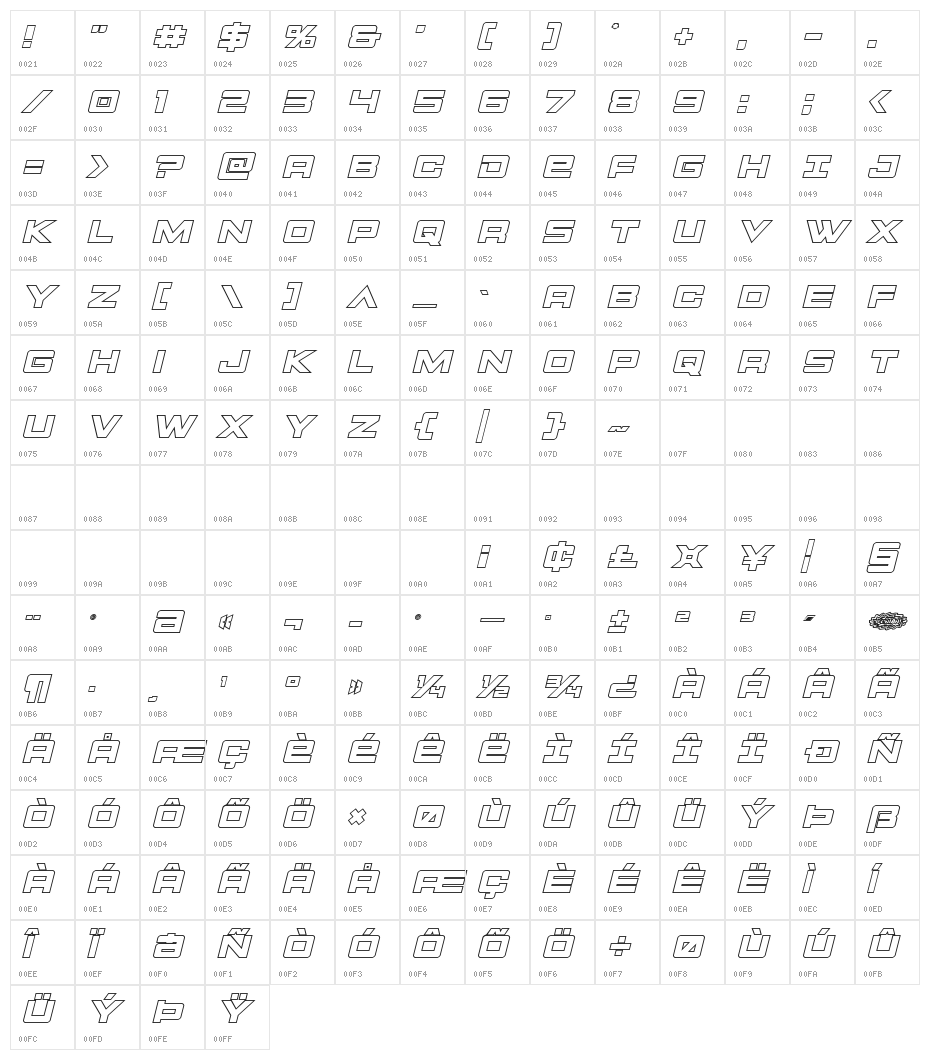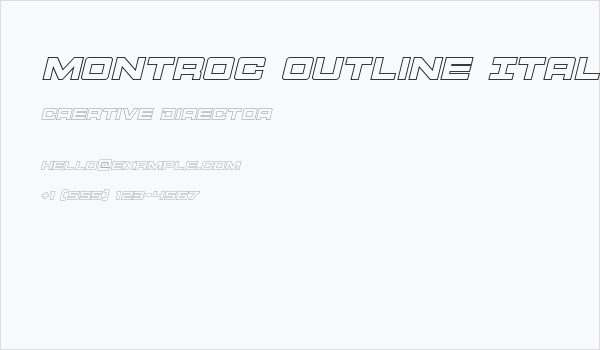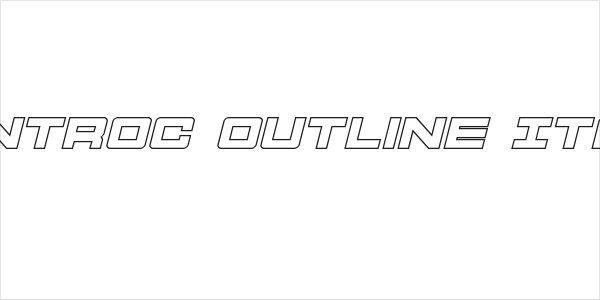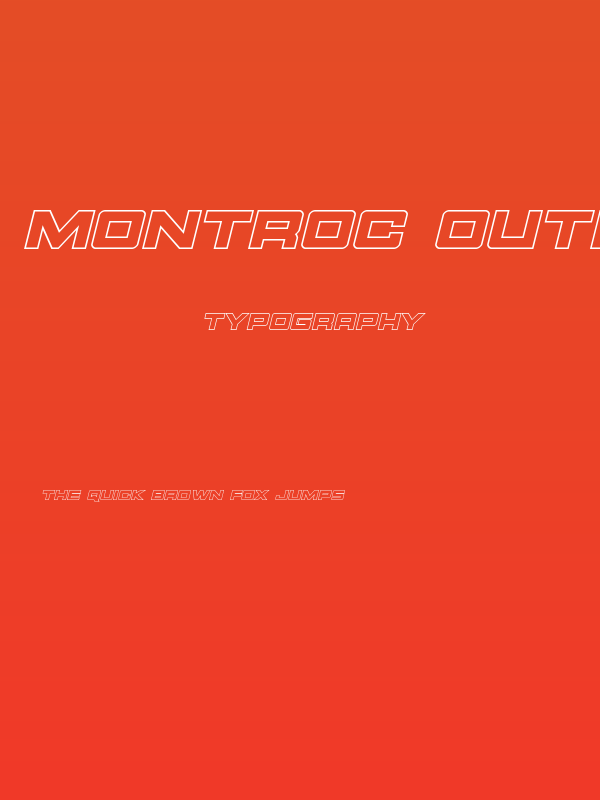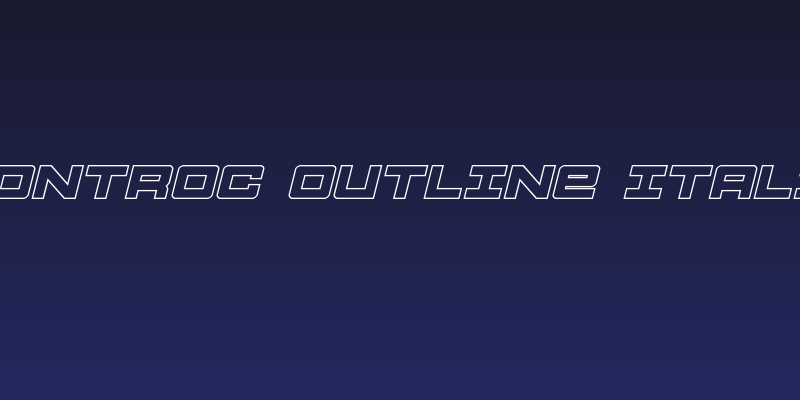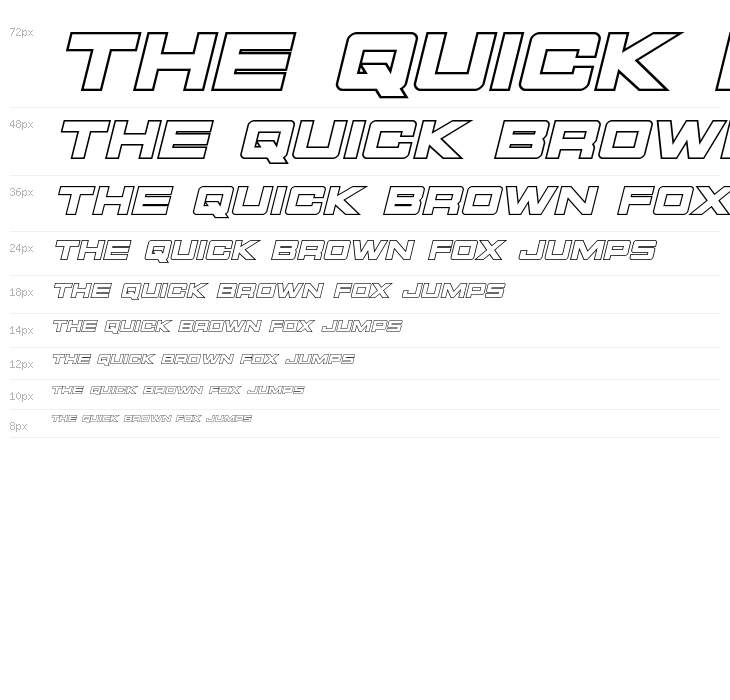
Montroc Outline Italic Font
Montroc Outline Italic Description
This font features a bold, geometric design with an outline style that gives it a modern and futuristic appearance. The italic slant adds a dynamic and forward-moving feel, making it suitable for attention-grabbing headlines and titles. The uppercase letters are consistent in height, while the lowercase letters maintain a similar structure, ensuring readability. The numbers and special characters are designed to match the overall aesthetic, providing a cohesive look across all elements. The outline effect is clean and precise, enhancing the font's visual impact without compromising legibility.
| Proposed Projects | Ideal for branding, posters, video game titles, and futuristic-themed projects. |